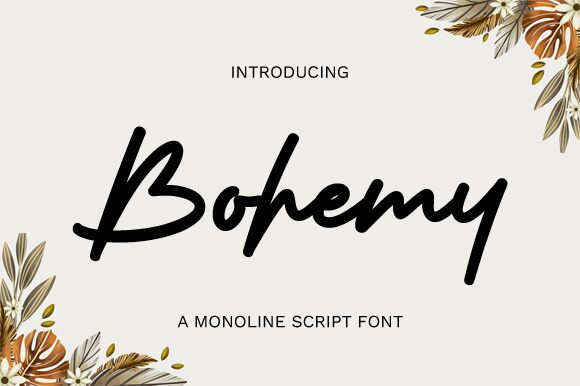
Bohemy
Bohemy font by Graphix Line Studio is a free handwritten signature font that combines expressive and artistic flair with relaxed elegance. It features a contemporary design suitable for individuals seeking to impress recipients with fancy and artistic works. With curvy lines that express an elegant vibe, this signature font can be used for luxurious designs.
Some common uses of Bohemy include certificates, posters, magazines, and other branding projects. Business cards significantly benefit from this elegant addition since it adds the right amount of finesse to your creations! You can also use it for social media pages, ads, commercials or even book covers.